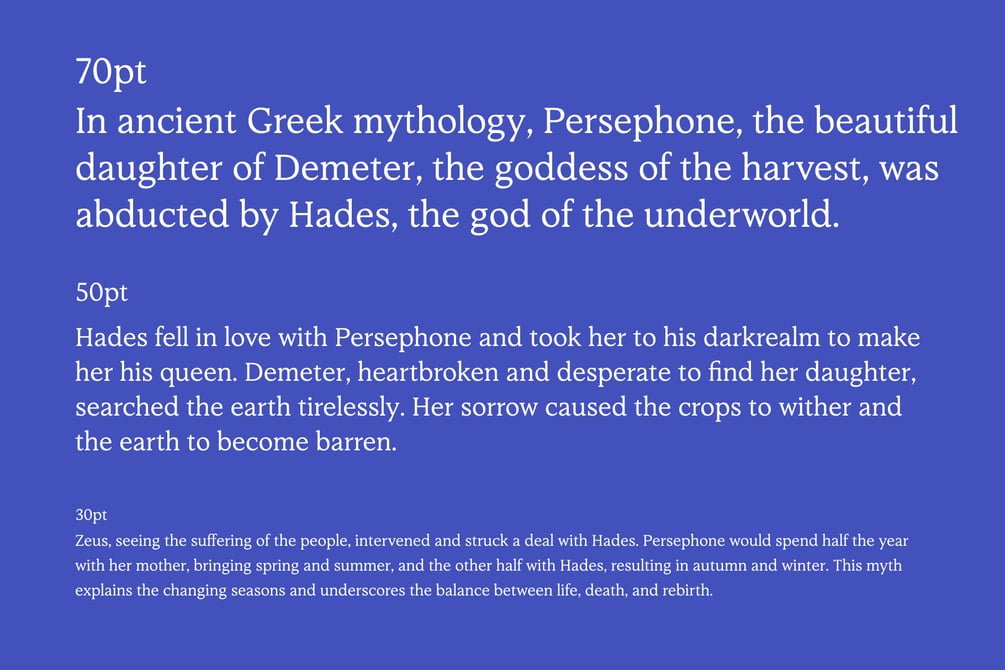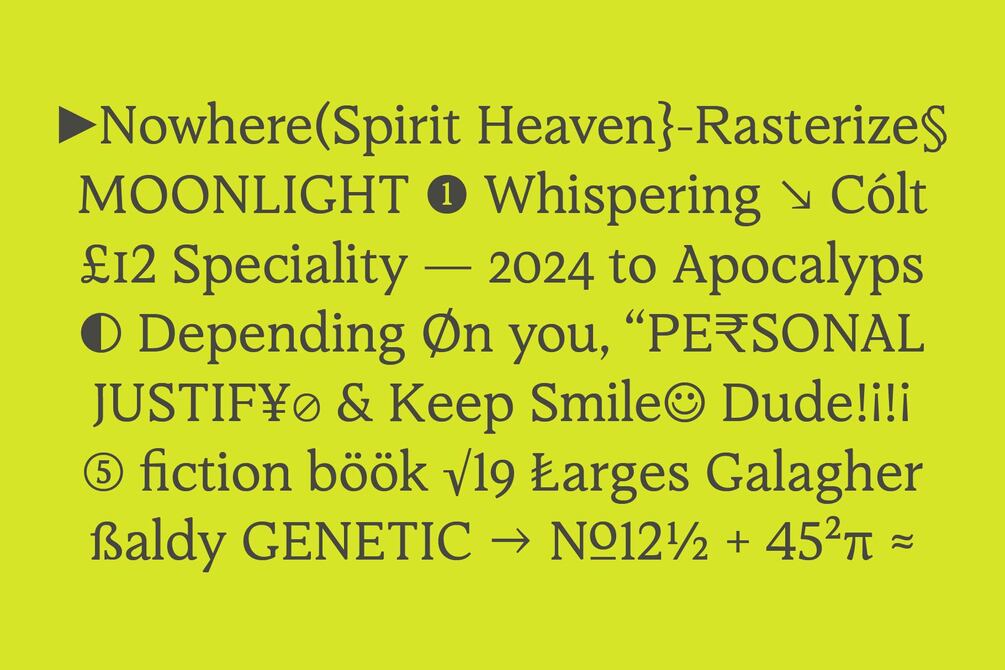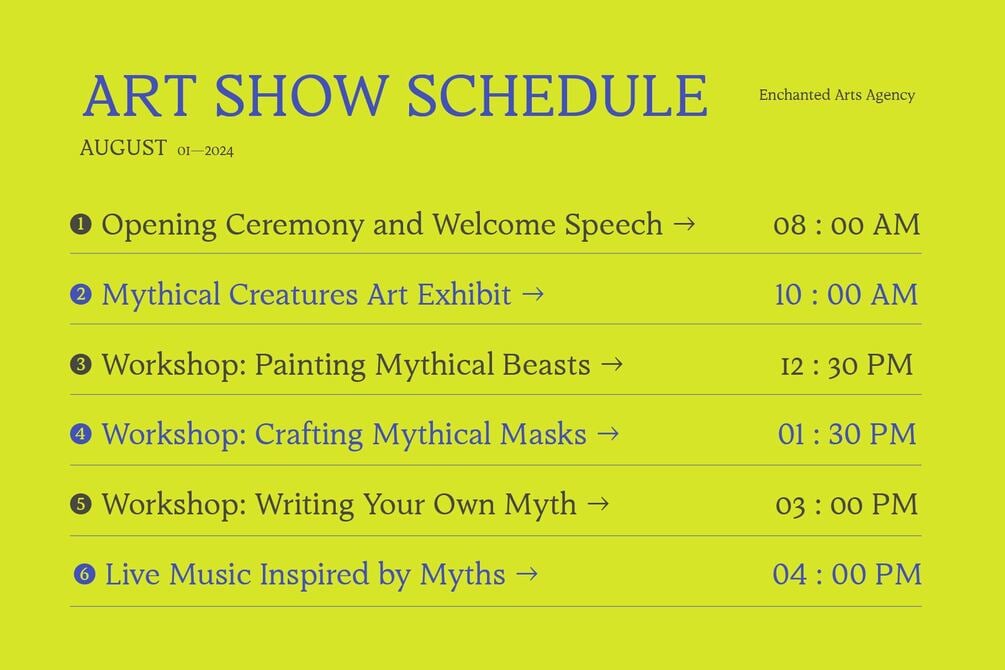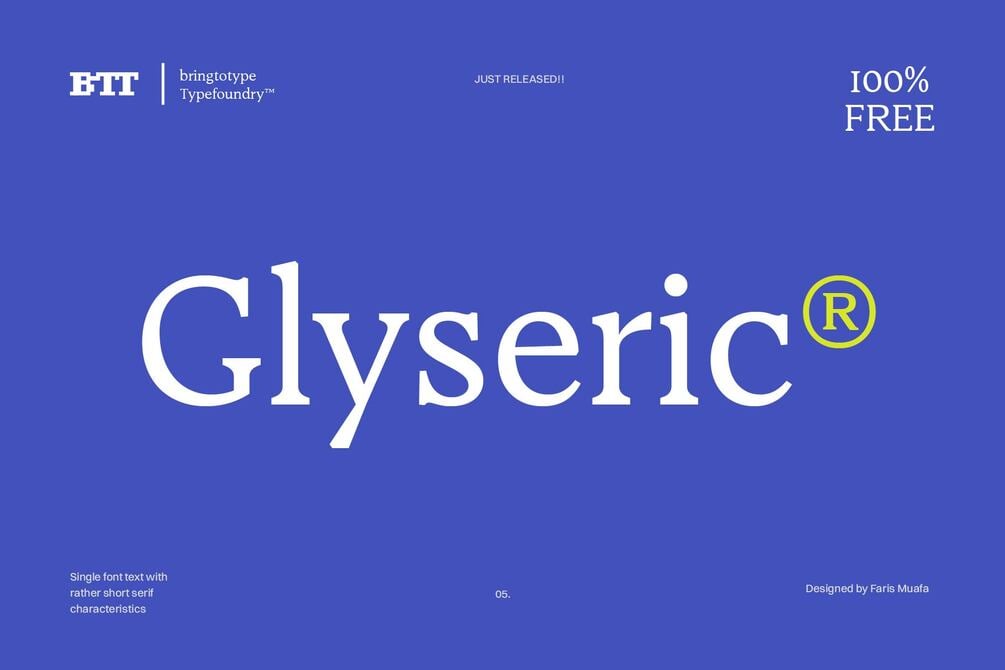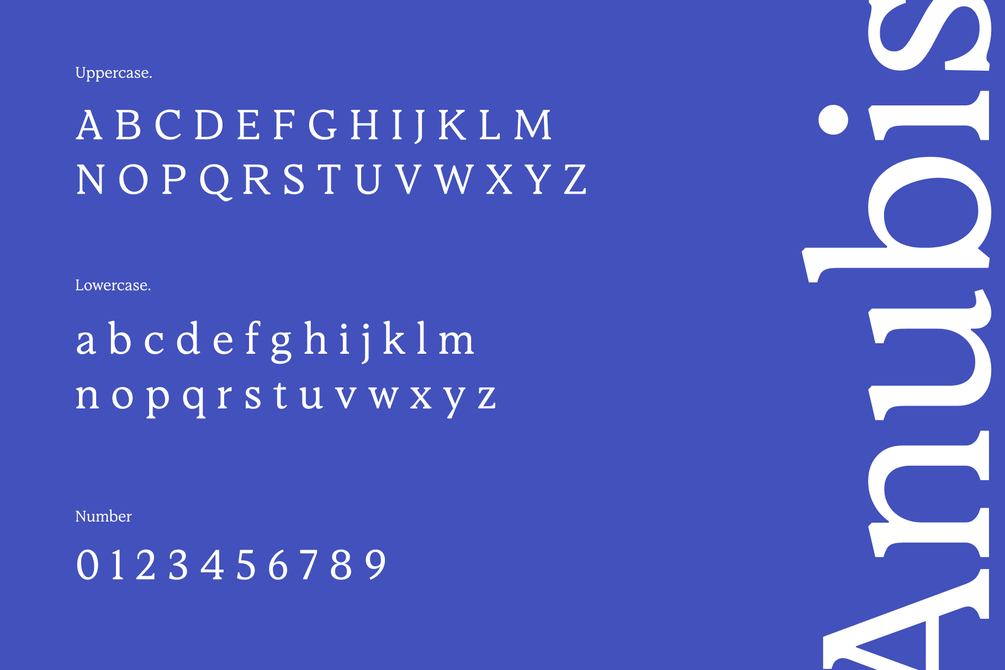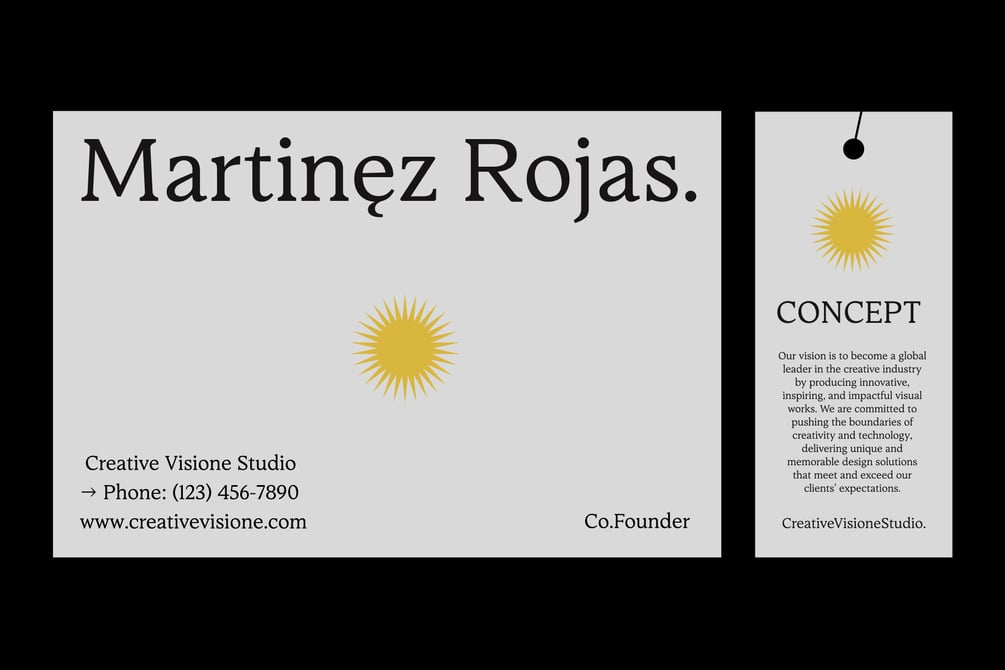
Glyseric Typeface
Glyseric stands out as a sophisticated serif typeface that marries traditional elements with modern design principles. Its short serifs and balanced letterforms provide a versatile and elegant option for a wide range of design applications.
Glyseric Font Features:
• ±480 Glyphs
• Uppercase and Lowercase
• Multilingual Support
• Symbols & Punctuation